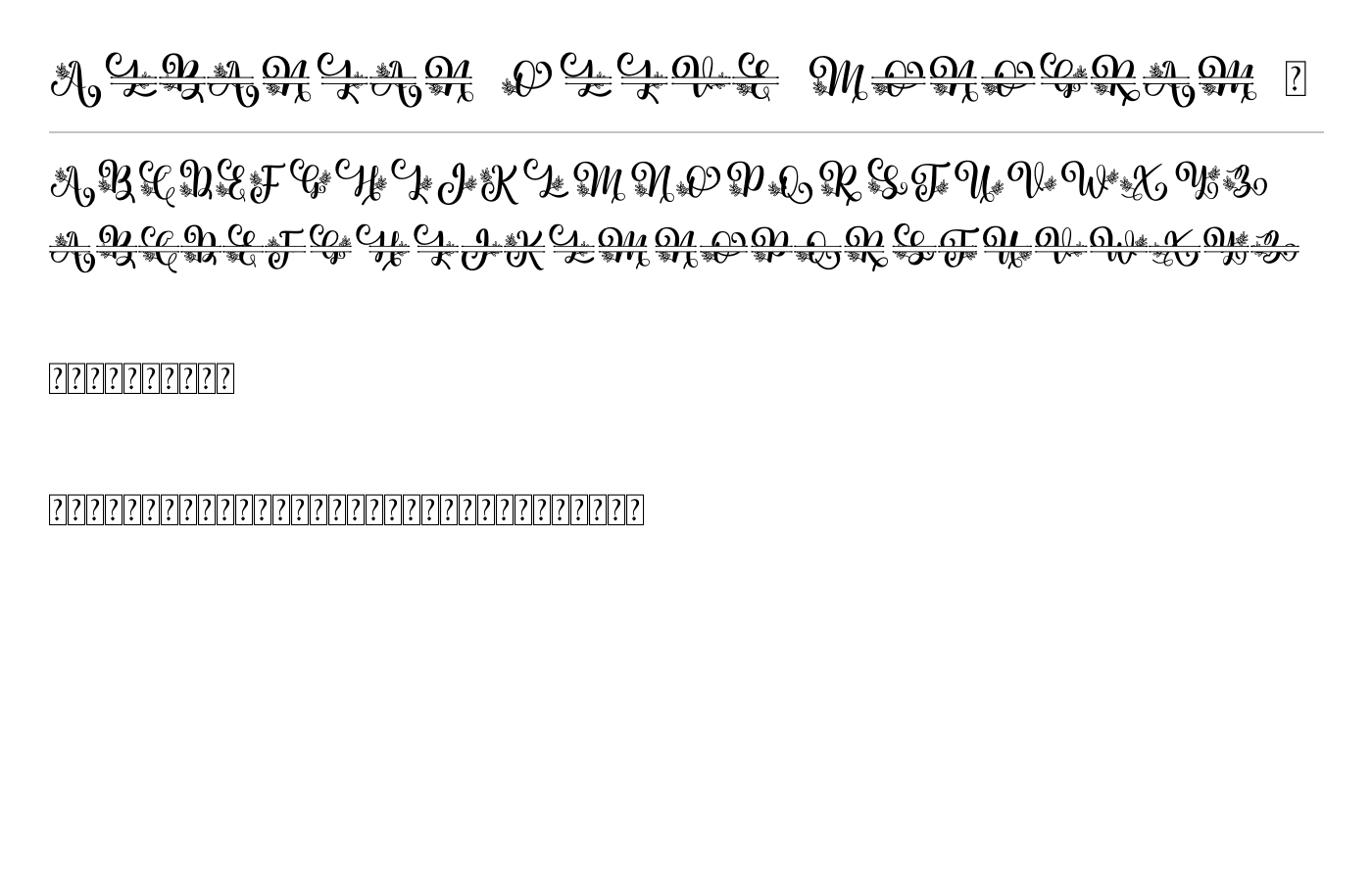
Albanian Olive Monogram 2 is a decorative script font characterized by elegant, flowing letterforms adorned with intricate olive branch motifs, giving it a sophisticated and ornamental appearance. Its medium weight and delicate curves make it ideal for luxury branding, monograms, and graceful logo designs where a touch of classic artistry and refined detail is desired. This font works best in headlines and branding projects that seek to convey elegance and a timeless, handcrafted feel.
Albanian Olive Monogram 2 Font
About Albanian Olive Monogram 2 Font